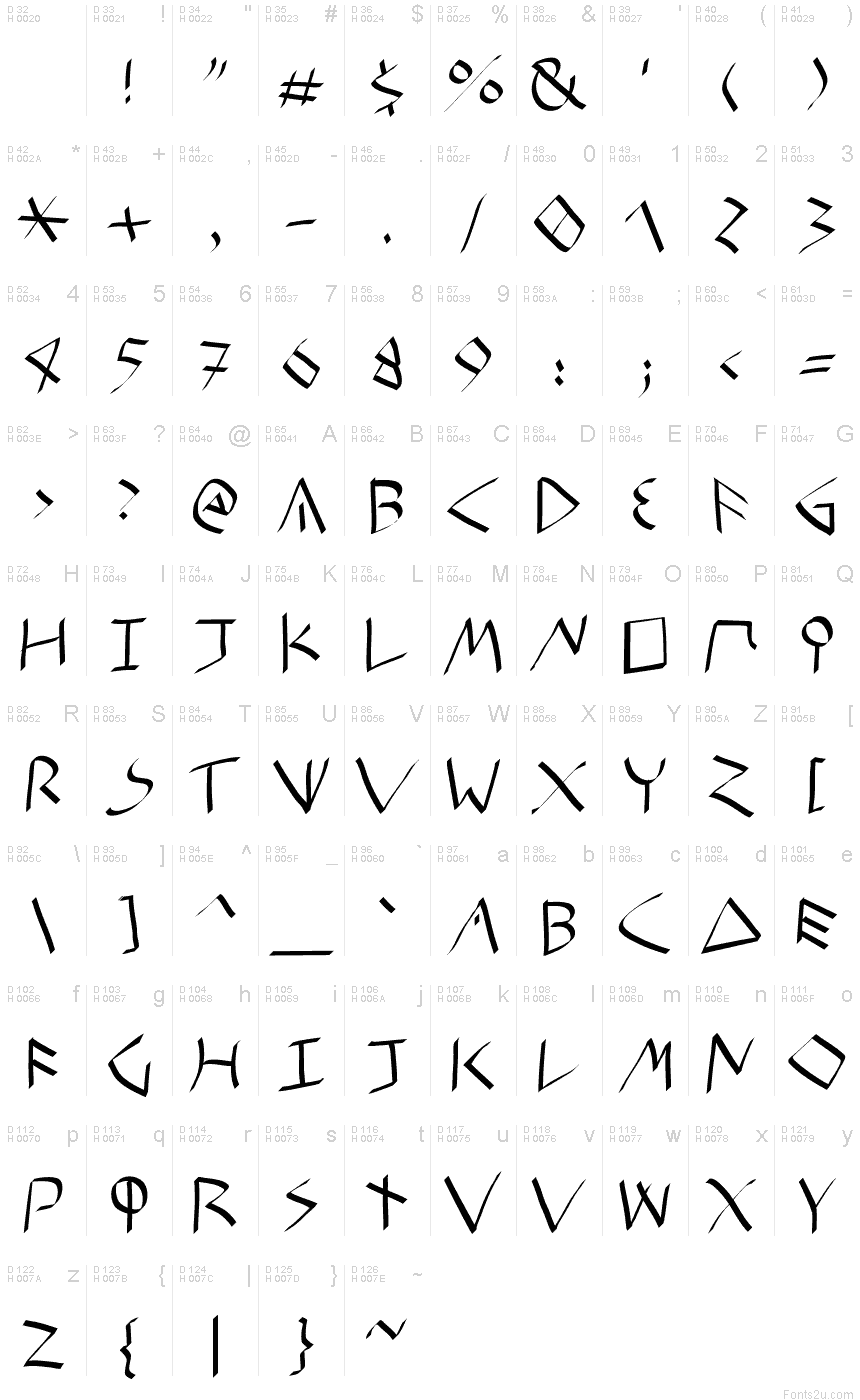
EtruskRough by M Klein is a free ancient-style display font built from sharply cut, irregular forms that resemble symbols carved quickly into wood or stone. Long diagonals, tapered strokes, and sudden changes in width give the letters a primitive inscriptional look, yet every form follows its own restless geometry.
Stone textures and archaeological illustration make an immediate connection on museum posters. That carved-symbol quality also suits historical game graphics, book covers, folk-music merchandise, and heritage event materials, where the lettering can become part of an imagined artifact instead of functioning as an ordinary caption.